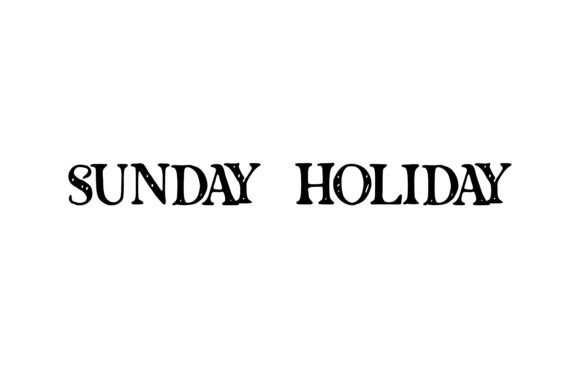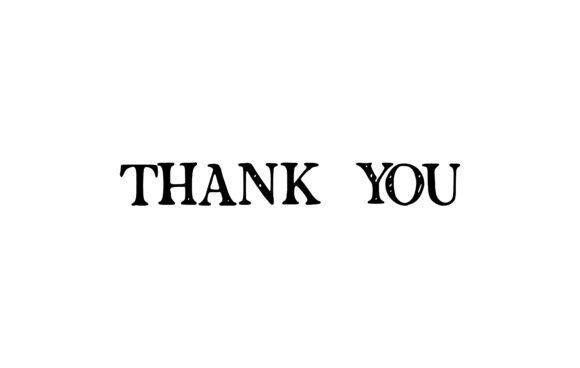
Bulbul Font: Elevate Your Designs with a Touch of Romance
In the world of typography, a font can make or break a design. It’s the perfect blend of style, elegance, and legibility that can take your creative ideas to new heights. Introducing Bulbul Font, an authentic serif font with a romantic touch that’s expertly designed to become your true favorite. In this article, we’ll dive into the features, benefits, and uses of Bulbul Font, and explore how it can elevate your designs to the highest level.
What is Bulbul Font?
Bulbul Font is a beautifully crafted serif font that’s perfect for designers and crafters looking for a touch of romance in their designs. With its classic and elegant look, this font is ideal for a wide range of applications, from magazine headlines and social media posts to branding, wedding invitations, and cards.
Key Features of Bulbul Font
- Authentic Serif Font: Bulbul Font boasts a traditional serif design that’s both timeless and sophisticated.
- Romantic Touch: The font’s subtle curves and elegant lines add a touch of romance to any design.
- Legible and Versatile: Bulbul Font is designed to be highly legible, making it perfect for use as both title and body text.
- Wide Range of Applications: From magazine headlines and social media posts to branding, wedding invitations, and cards, Bulbul Font is the perfect choice for various design projects.
Benefits of Using Bulbul Font
So, why choose Bulbul Font for your design projects? Here are just a few benefits:
- Elegance and Sophistication: Bulbul Font adds a touch of elegance and sophistication to any design, making it perfect for high-end brands and luxury products.
- Improved Readability: The font’s high legibility ensures that your message is conveyed clearly and effectively, making it perfect for body text and captions.
- Flexibility: Bulbul Font is versatile enough to be used in a wide range of design projects, from digital media to print materials.
- Unique and Memorable: With its romantic touch and classic design, Bulbul Font helps create unique and memorable designs that stand out from the crowd.
Uses of Bulbul Font
Bulbul Font is perfect for a variety of design projects, including:
- Magazine Headlines: Add a touch of elegance and sophistication to your magazine headlines with Bulbul Font.
- Social Media Posts: Make your social media posts stand out with Bulbul Font’s romantic touch and classic design.
- Branding: Use Bulbul Font to create a cohesive brand identity that’s both elegant and sophisticated.
- Wedding Invitations: Add a touch of romance to your wedding invitations and stationery with Bulbul Font.
- Cards and Stationery: Use Bulbul Font to create beautiful and elegant cards and stationery for any occasion.
In conclusion, Bulbul Font is a beautifully crafted serif font that’s perfect for designers and crafters looking for a touch of romance in their designs. With its classic and elegant look, high legibility, and versatility, Bulbul Font is the perfect choice for a wide range of design projects. Whether you’re looking to create elegant magazine headlines, romantic wedding invitations, or sophisticated brand identities, Bulbul Font is sure to elevate your designs to the highest level.